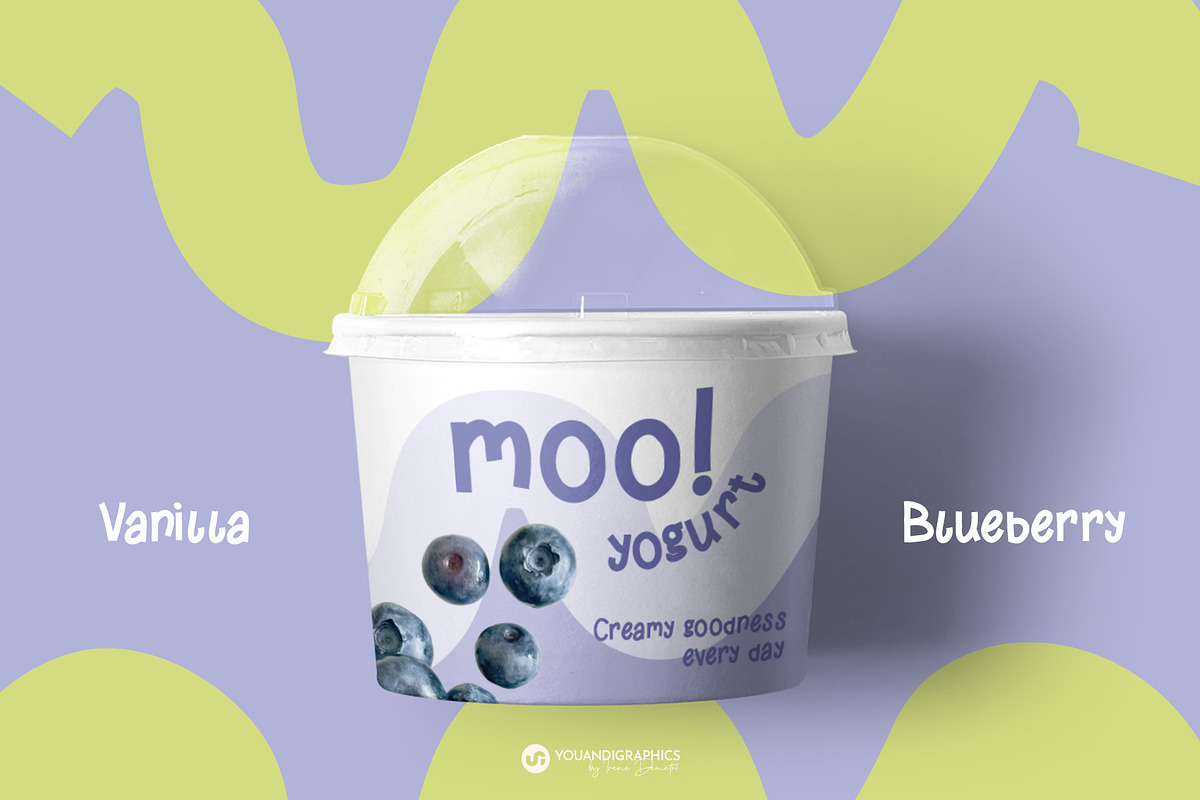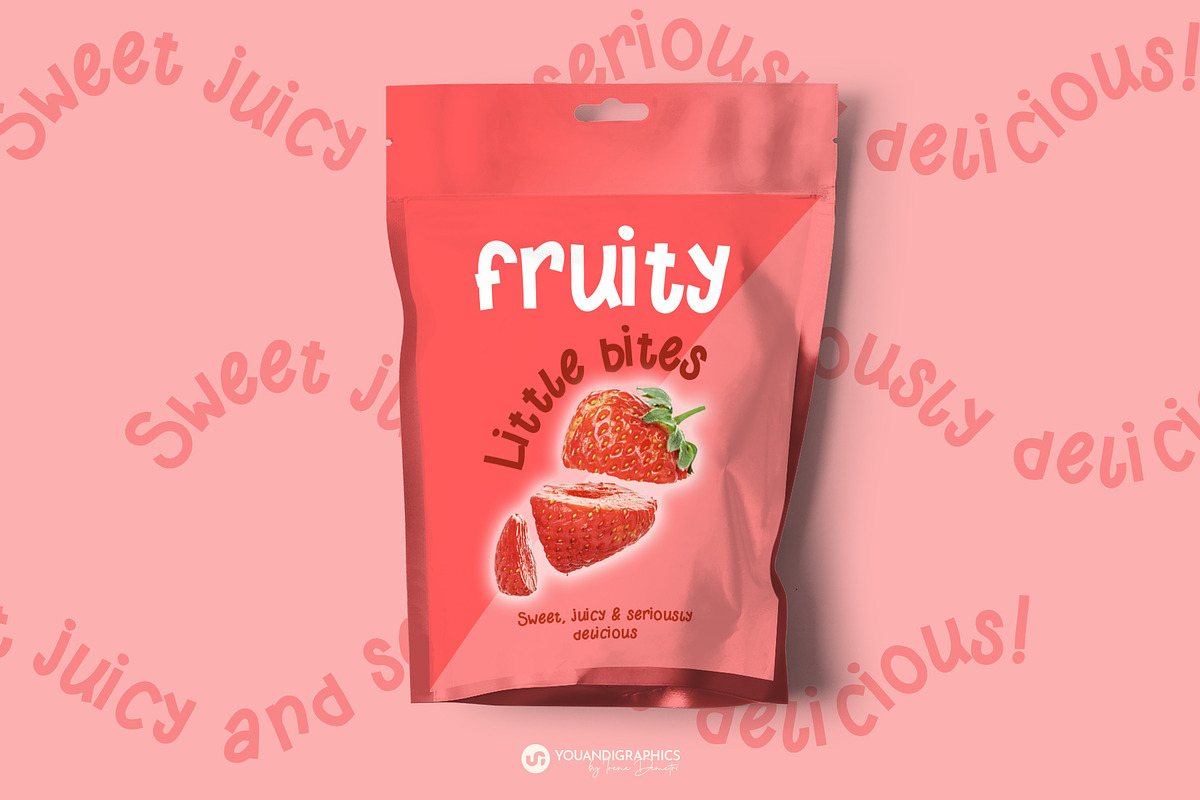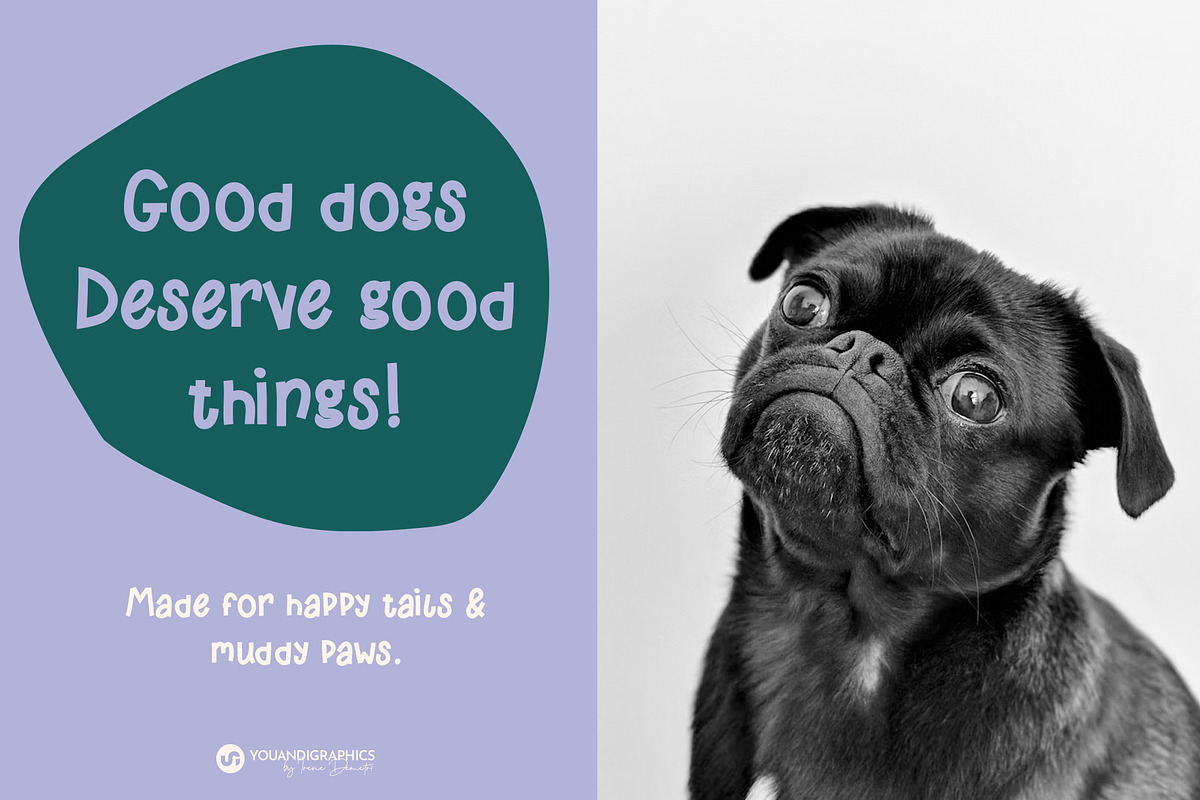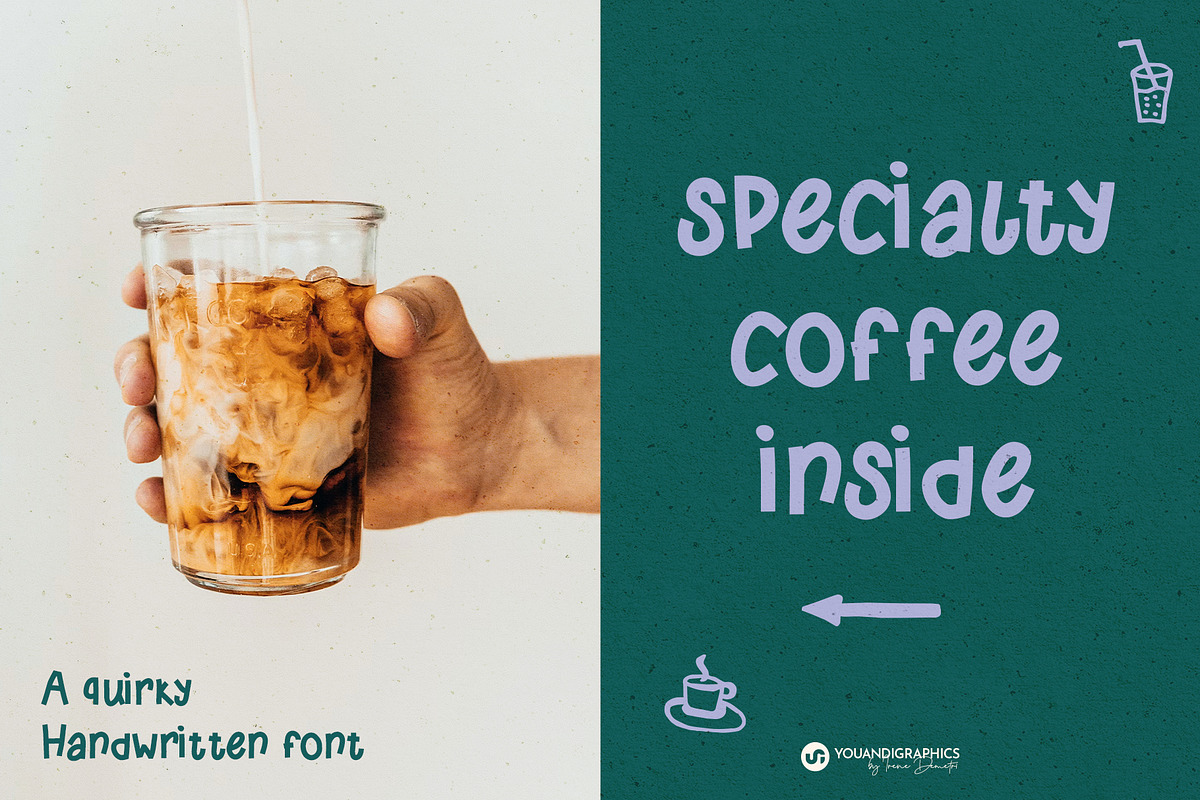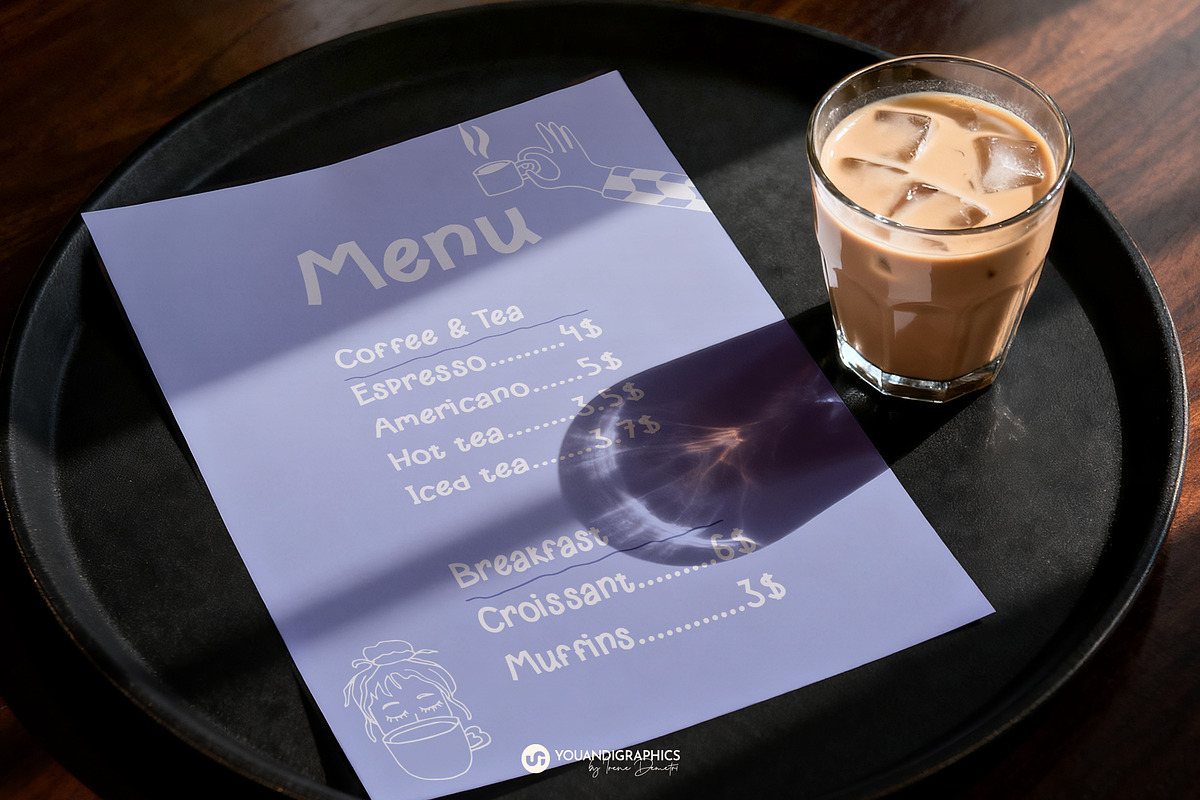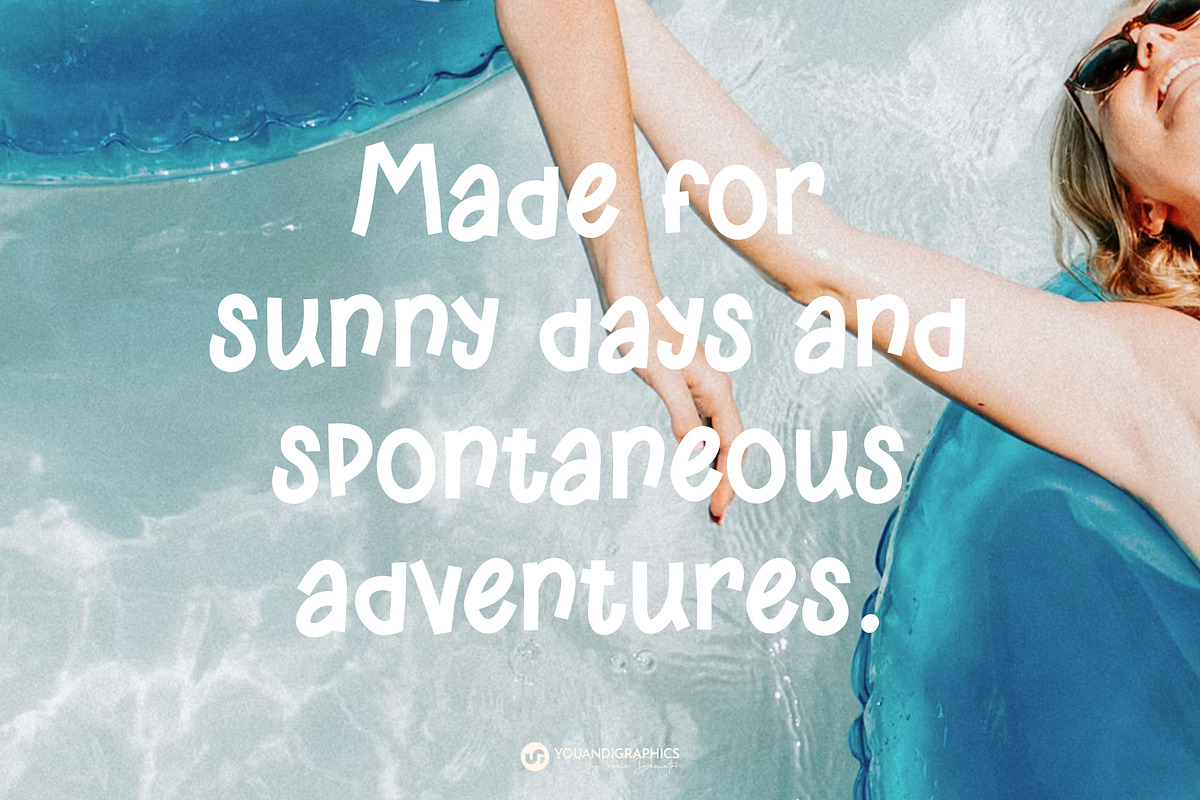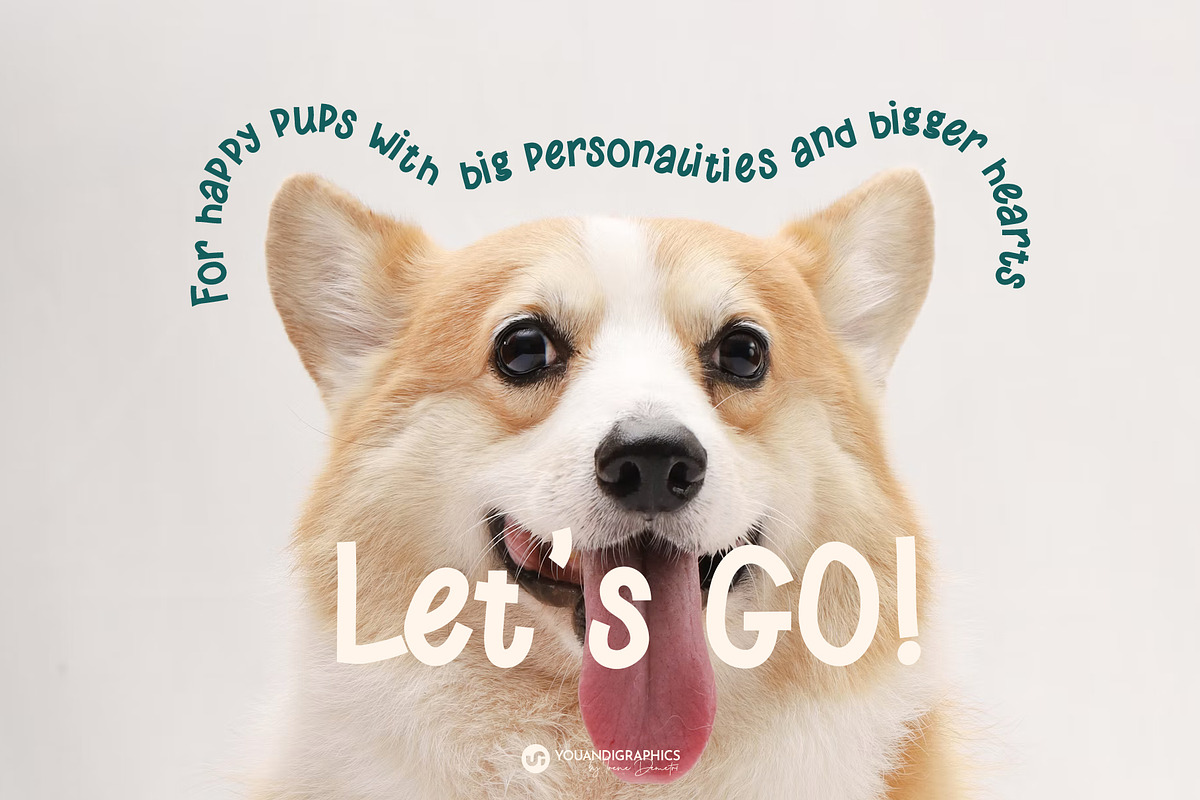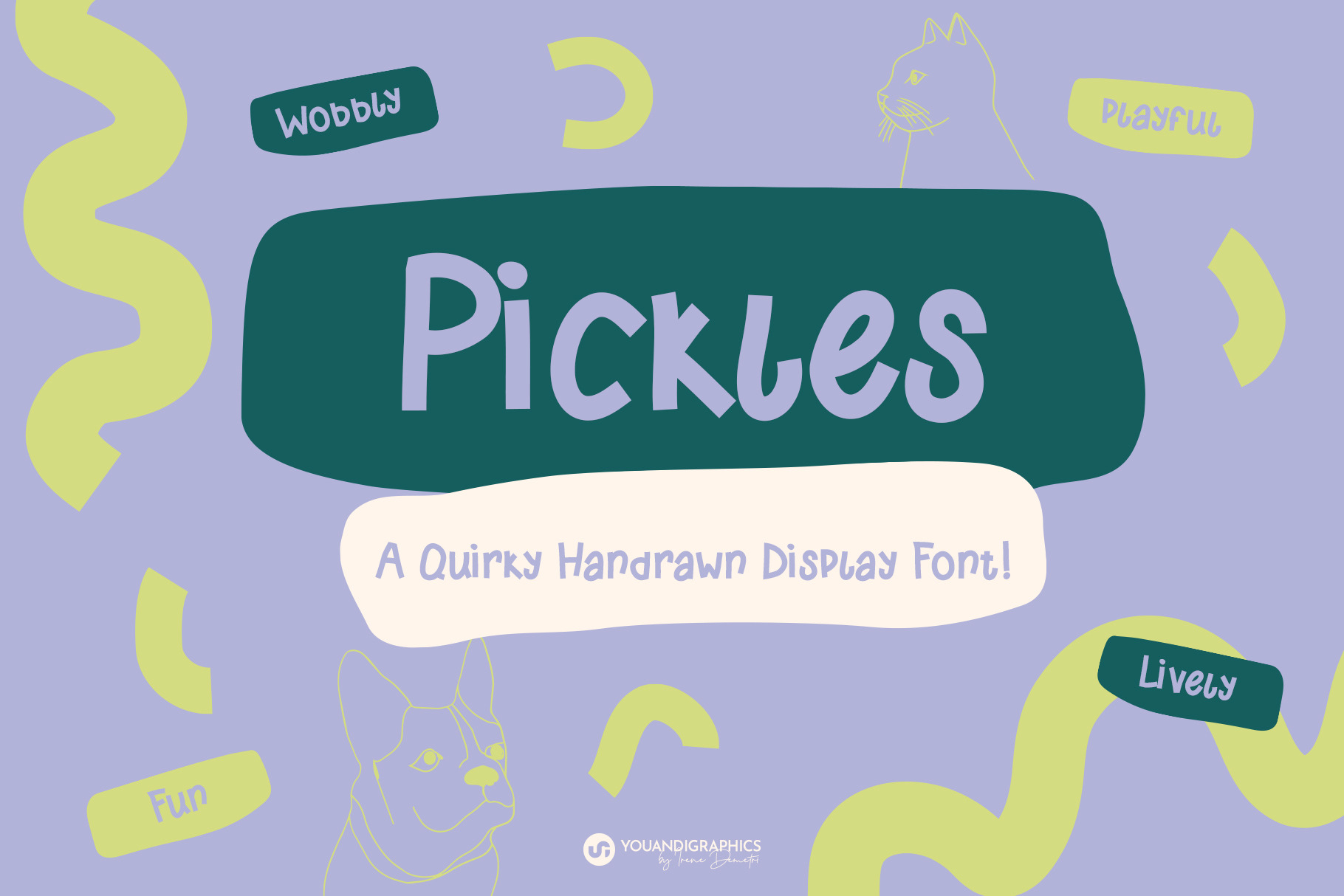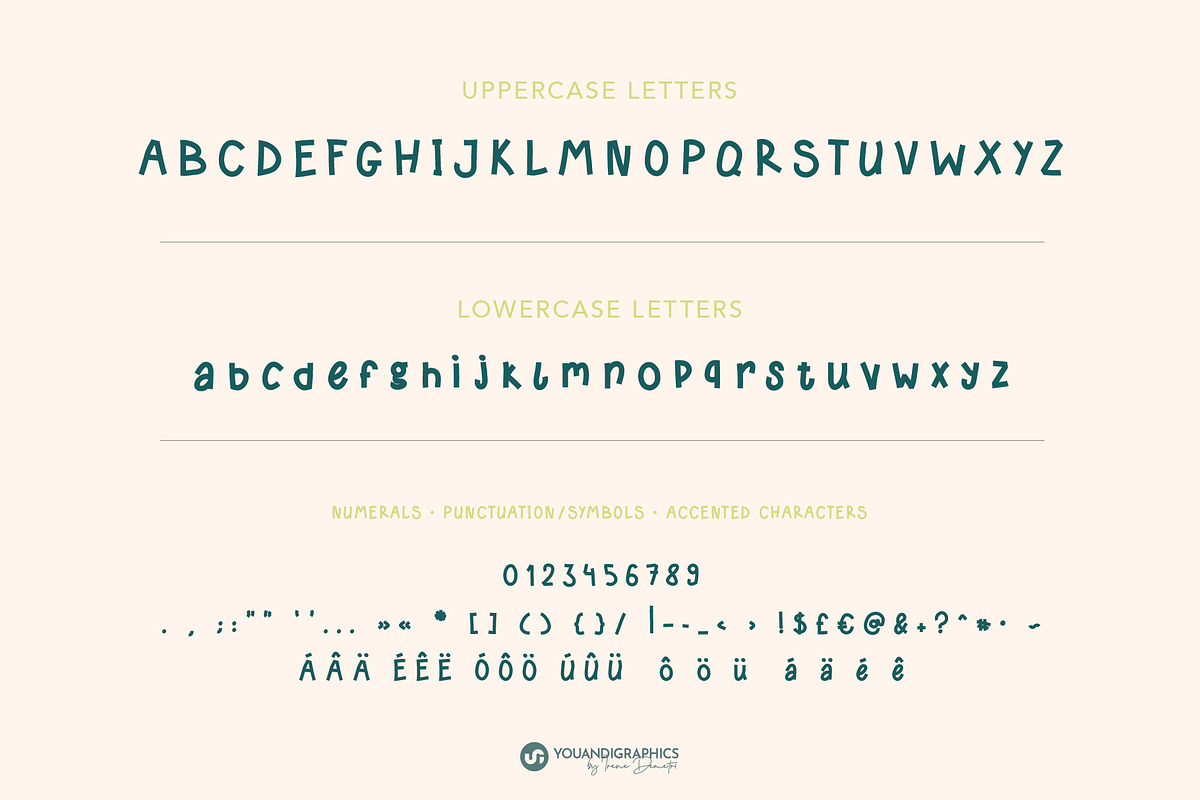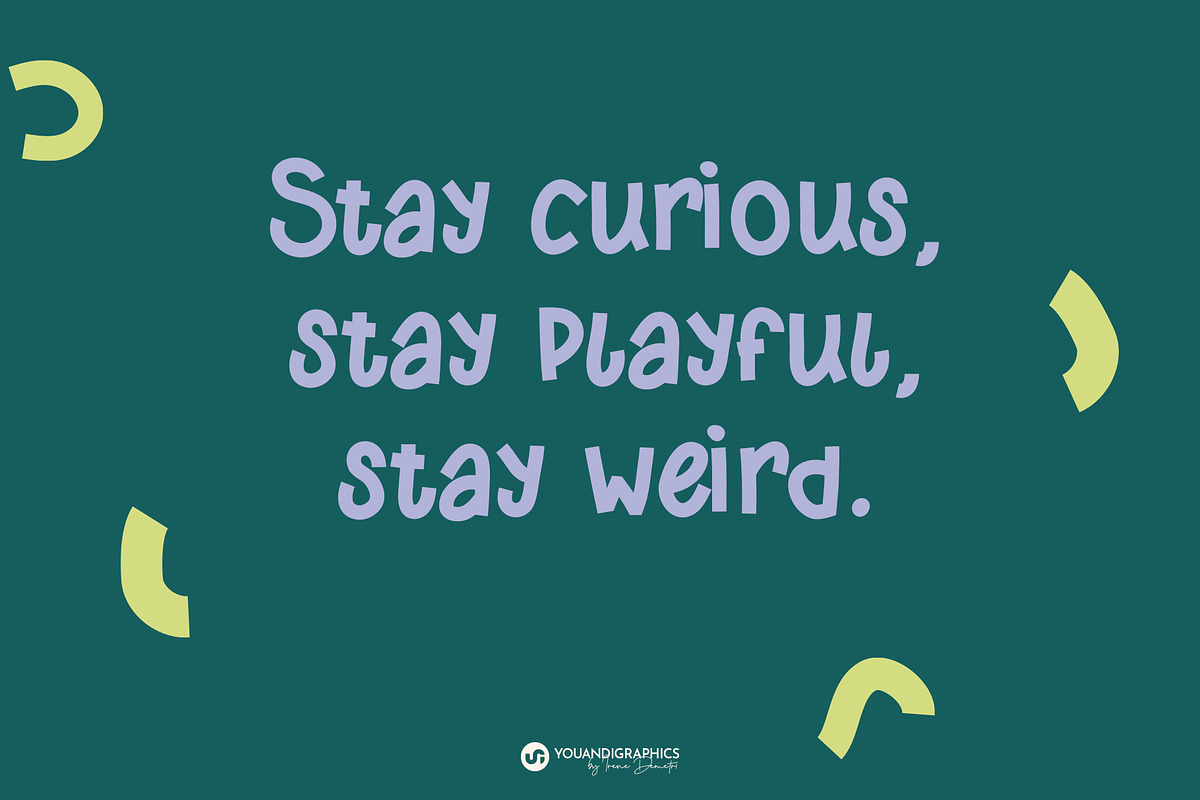
Pickles - Handwritten Display Font
Pickles is a playful, quirky handwritten display font full of personality. With its bold, imperfect character and friendly handmade feel, it’s designed to bring a little fun and attitude to your projects.
Created with playful branding in mind, Pickles is especially suited to pet businesses, packaging, food brands, logos, labels, social media graphics, posters, and other projects that need a cheerful and distinctive touch.
Uppercase & lowercase letters
Accented Characters
Pet shops, pet brands & dog businesses
Fun and playful branding
Packaging & product labels
Logos & wordmarks
Food & beverage branding
Posters & signage
Stickers, cards & merchandise
Pickles works beautifully when you want typography that feels friendly, expressive, a little quirky, and definitely not too serious.